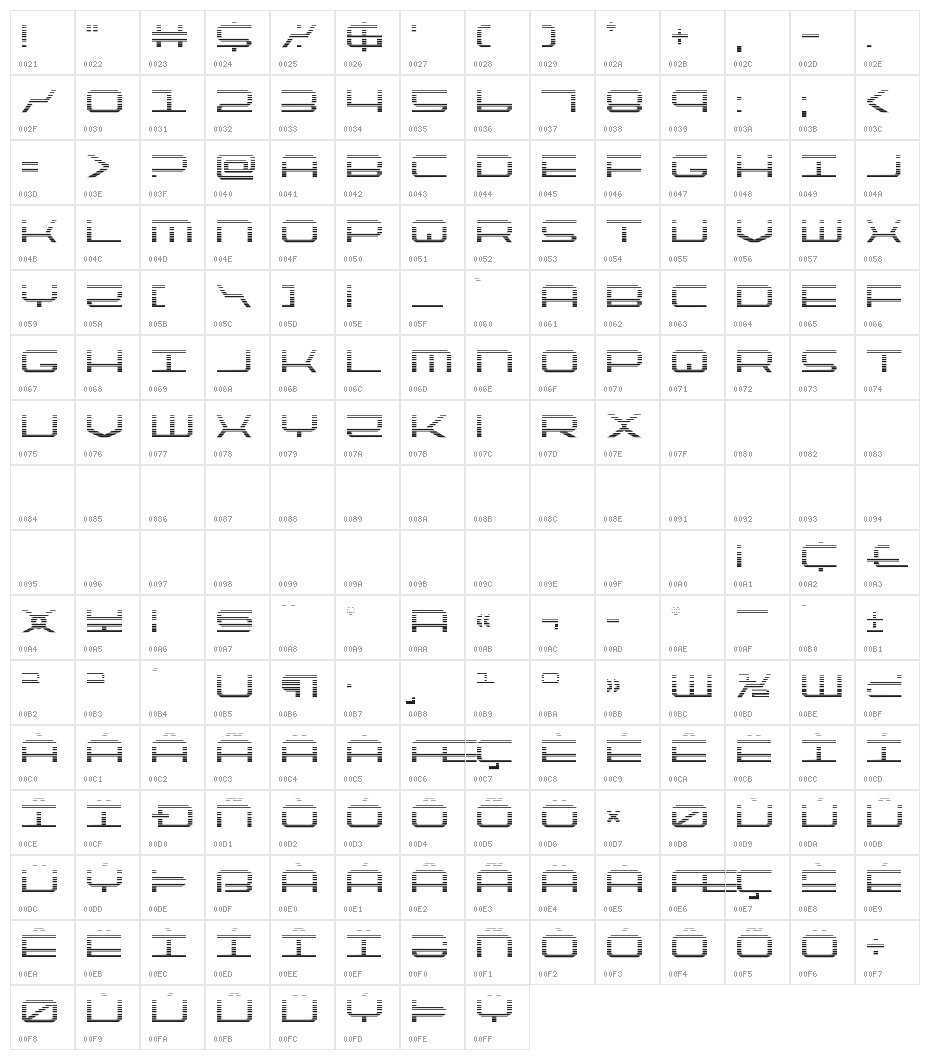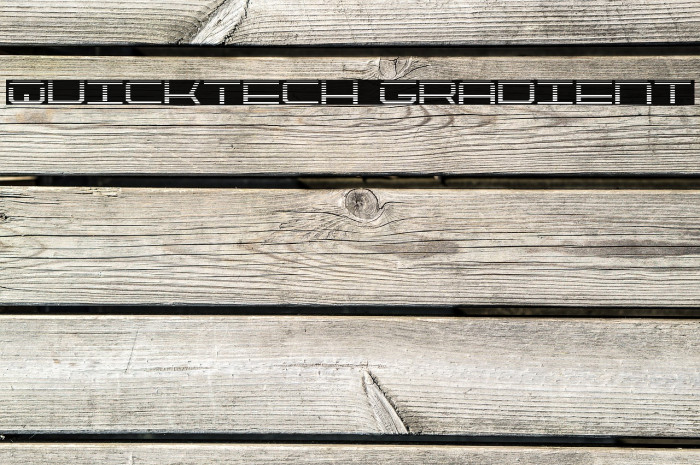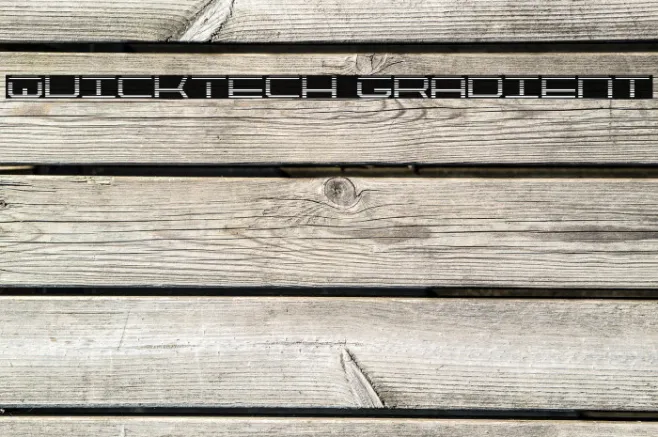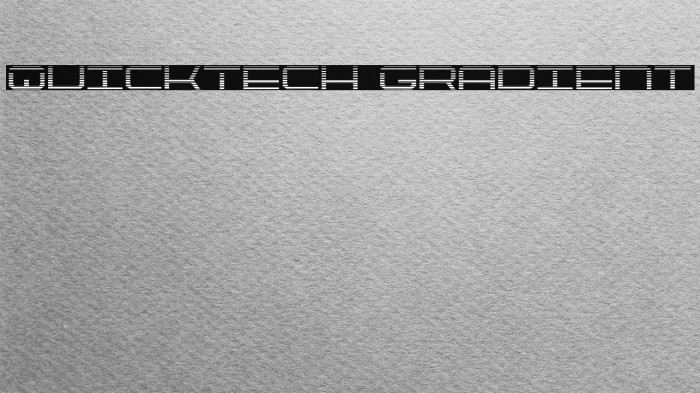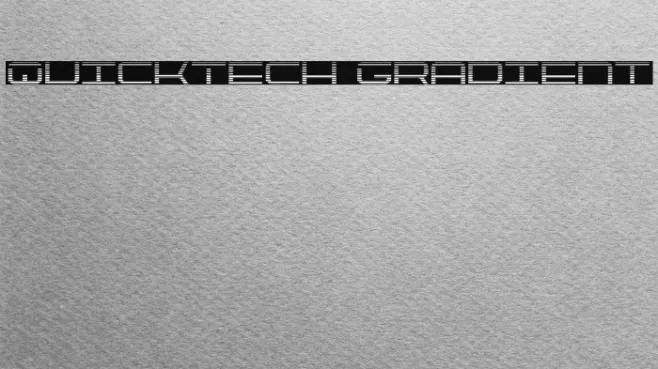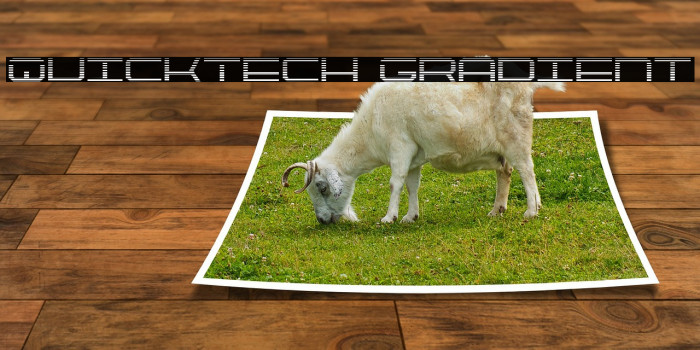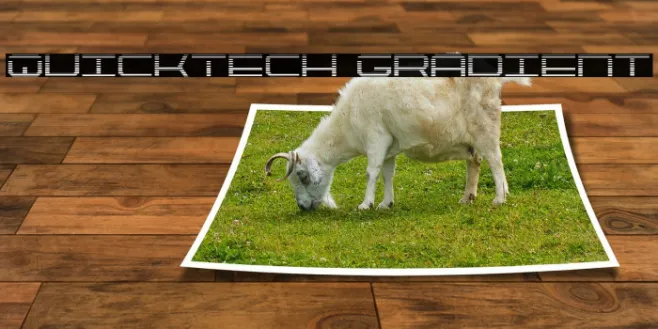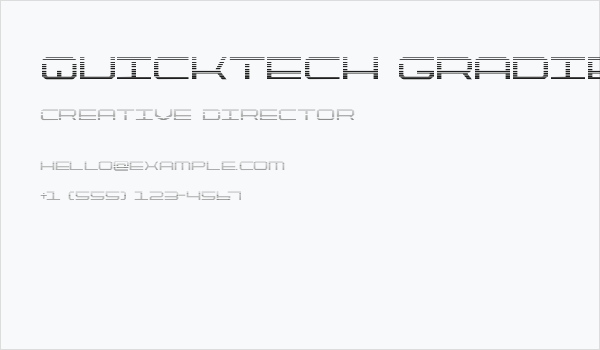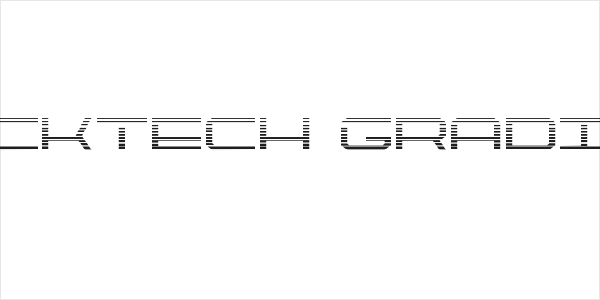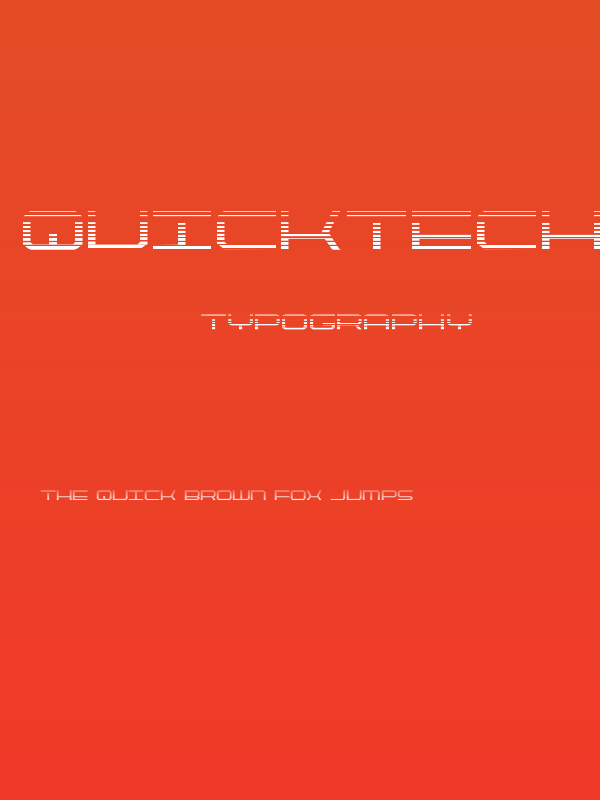
QuickTech Gradient Font
QuickTech Gradient Description
This font features a futuristic and technological design, characterized by its unique gradient effect within each character. The letters are composed of horizontal lines that create a sense of movement and depth. The uppercase and lowercase letters maintain a consistent style, with a geometric and structured appearance. Numbers and special characters follow the same design principles, ensuring uniformity across all glyphs. This font is ideal for projects that require a modern and innovative look, such as tech branding, digital interfaces, and sci-fi themed designs.
| Proposed Projects | Tech branding, digital interfaces, sci-fi themed designs, futuristic posters, and innovative product packaging. |